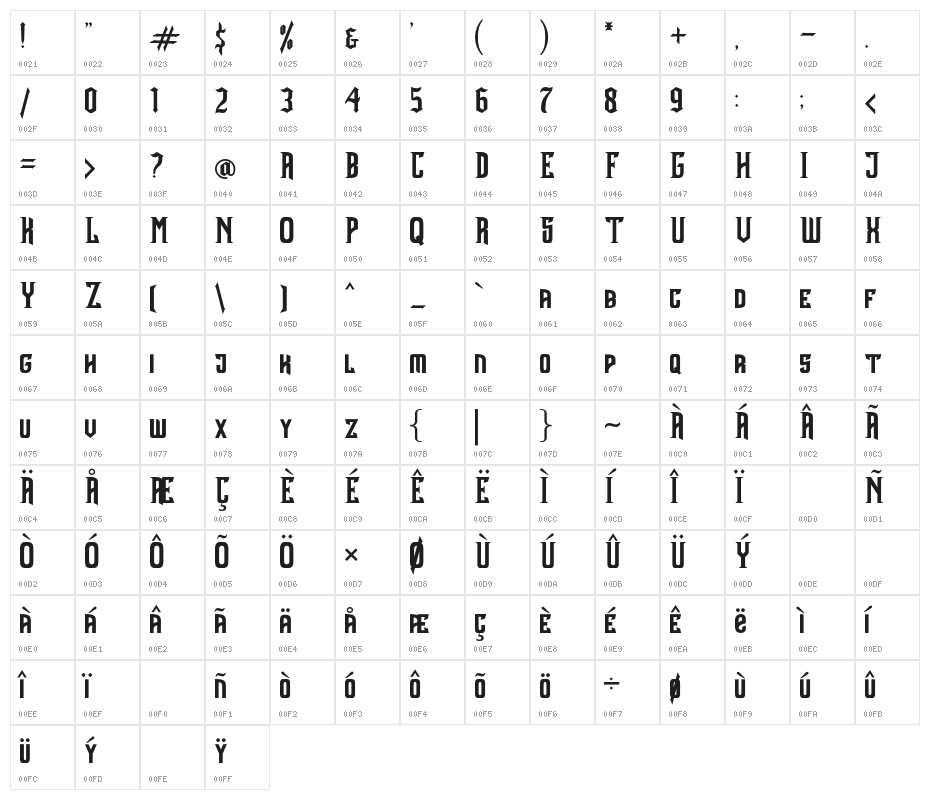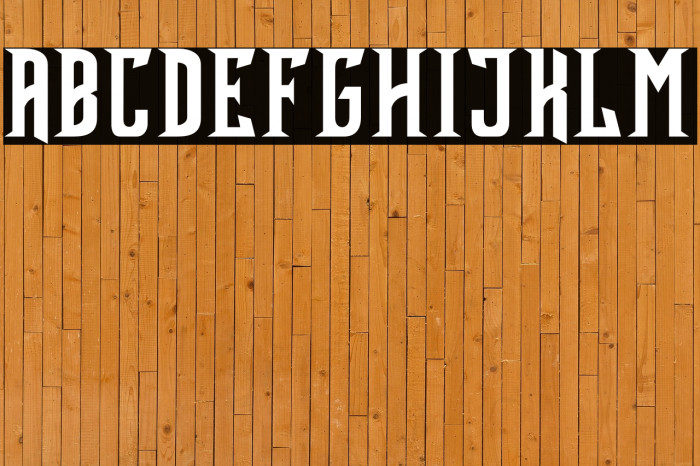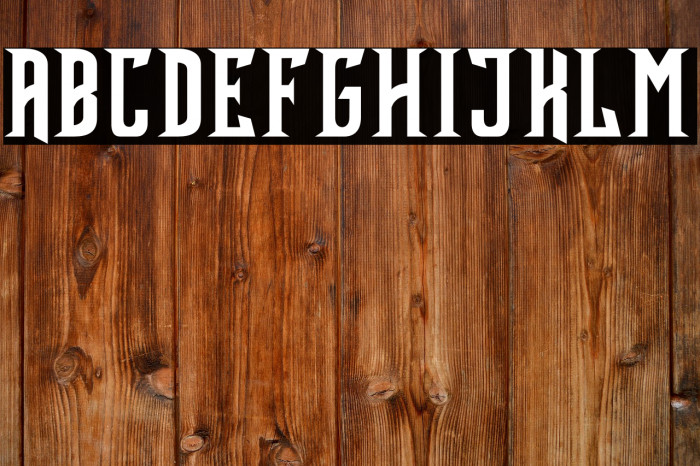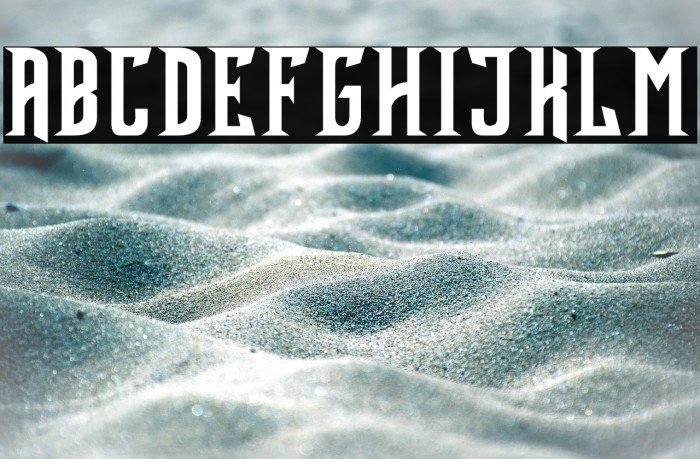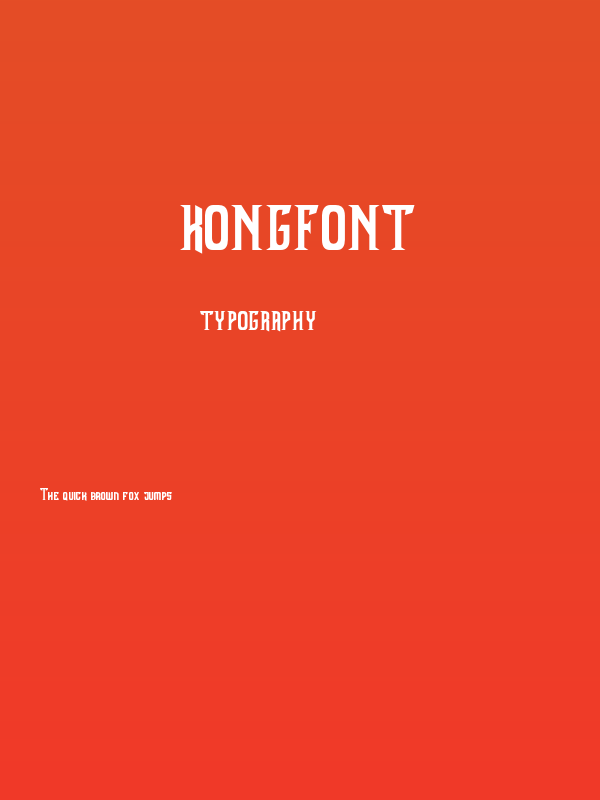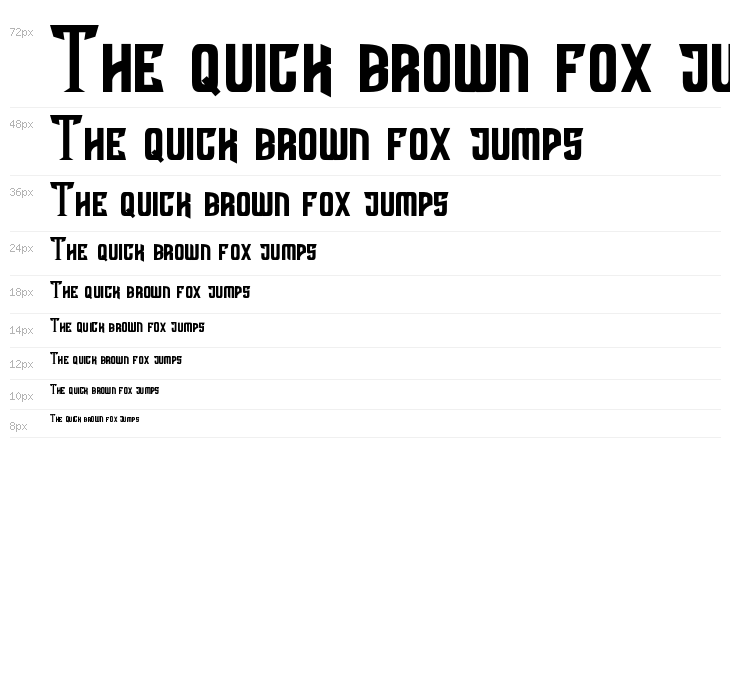
KongFont Font
KongFont Description
This font features a bold and striking design with sharp, angular edges and a strong presence. The uppercase letters are particularly prominent, with a unique geometric style that gives them a modern and edgy look. The numerals and special characters maintain this bold aesthetic, ensuring consistency across all glyphs. The font's design is reminiscent of vintage signage or posters, making it ideal for projects that require a strong visual impact. Its distinctive style is both eye-catching and memorable, perfect for making a statement.